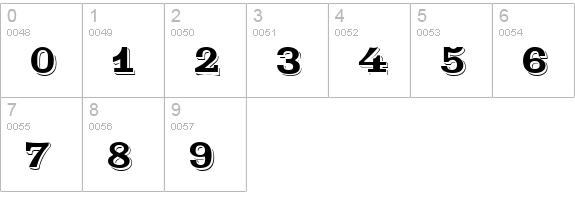
Goldstone Regular Font Details
Goldstone Regular is the standard, neutral variant in the Goldstone typeface family \xE2\x80\x94 well suited to general body text, paragraphs, and standard typographic work.
Goldstone Regular is a versatile and elegant font that exudes sophistication and style. Its clean lines and classic design make it perfect for a wide range of projects, from branding to editorial design. The timeless appeal of Goldstone Regular will enhance any text or layout with a touch of class. And the best part? Goldstone Regular is available for free download at FontsMarket.com. So whether you're a professional designer looking for a high-quality font or someone just starting out in the world of typography, Goldstone Regular is a fantastic choice that won't break the bank. Download it today and elevate your designs with this beautiful and versatile typeface.